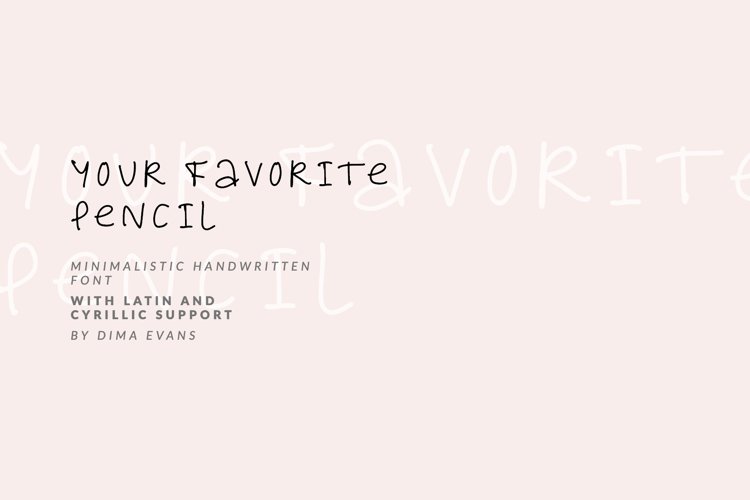
Pencil Cyrillic handwritten font
YourFavoritePencil
Your Favorite Pencil is a cute handwritten font with Cyrillic support. It is perfect for branding, wedding invitations, menu design, YouTube covers and many more
Font includes a full set of gorgeous uppercase and lowercase letters, numbers, a large selection of punctuation marks & Cyrillic support
Твой Любимый Карандаш - это милый рукописный шрифт с поддержкой кириллицы. Он идеально подходит для брендинга, свадебных приглашений, дизайна меню, обложек YouTube и многого другого
Шрифт включает в себя полный набор великолепных прописных и строчных букв, цифр, большой выбор знаков препинания и поддерживает кириллицу
• Regular Script
• Latin languages support
• Cyrillic languages support
• Uppercase and lowercase
• Numbers and punctuation